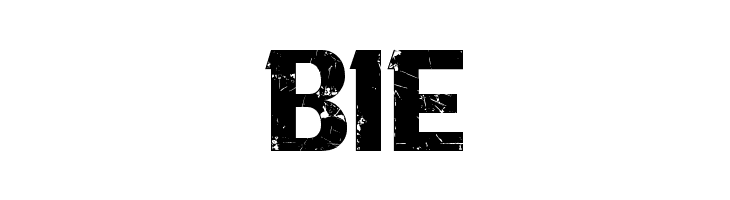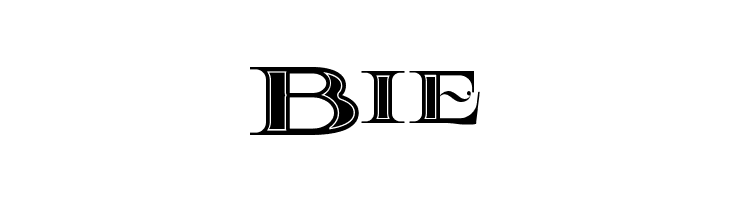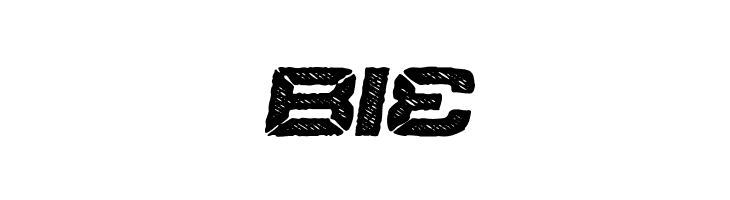
A bold, tall, and narrow font with consistent stroke widths for a strong, assertive appearance.
A bold, distressed font with a textured, rugged appearance.
A bold, decorative font with an inline style, offering a vintage yet modern look.
A bold, textured font with a rugged, distressed appearance.
A bold, distressed font with a vintage, rugged aesthetic.
A bold, distressed font with a rugged, grunge-like texture.
A bold, italicized font with a distressed texture and dynamic slant.
A bold, italicized font with a textured shadow effect, perfect for vintage-inspired designs.
A bold, distressed decorative font with a vintage, textured style.